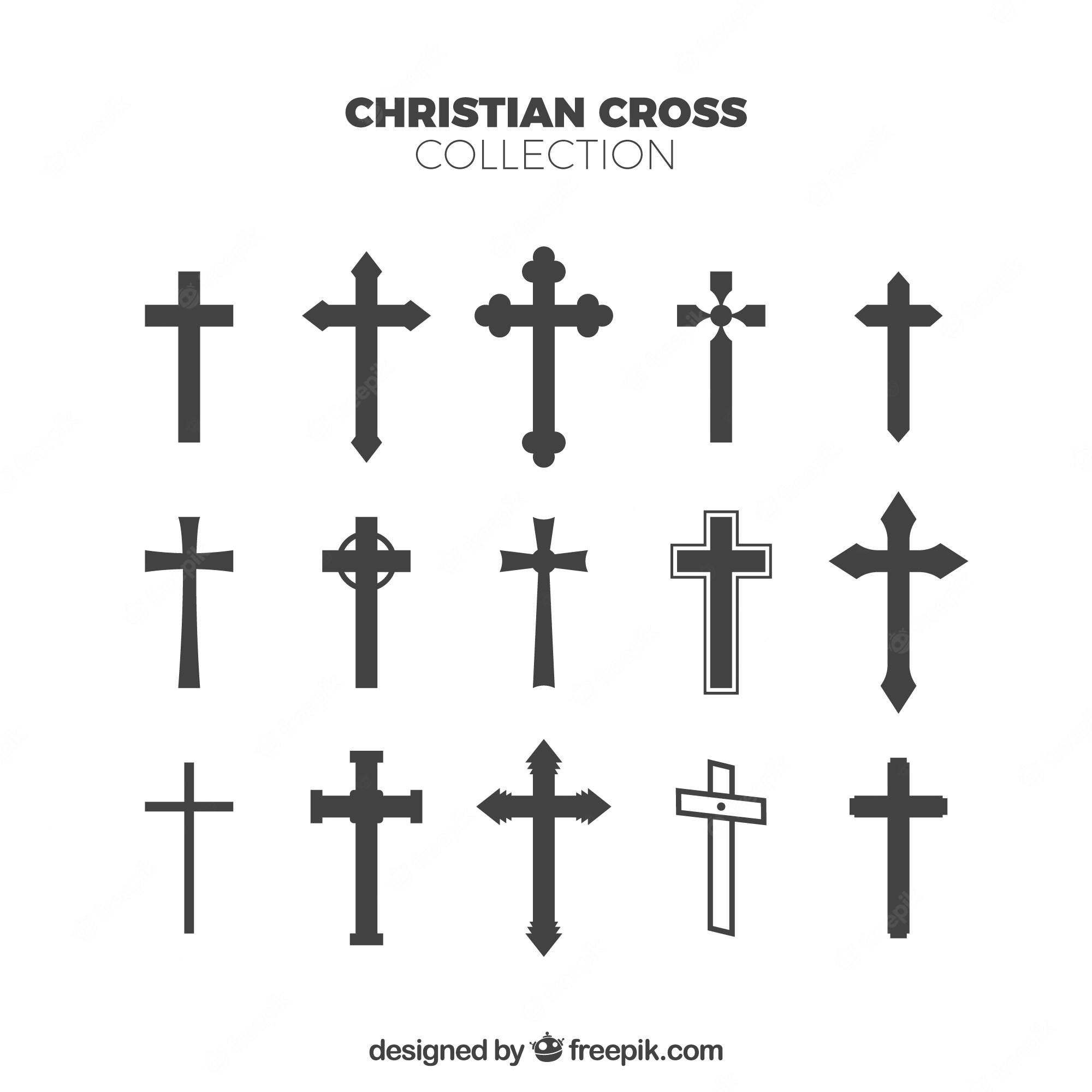
Fonts With Crosses: Adding Religious Symbolism To Your Typography
fonts with crosses: Adding Religious Symbolism to Your Designs
Fonts are a crucial element of design. They help convey a message, create a mood, and give visual interest to written communication. One popular type of font is a font with crosses incorporated into the design. These fonts are perfect for religious or spiritual messages, but they can also work well in other contexts.
The cross is one of the most recognizable religious symbols in the world, and it has been used in art and design for centuries. Incorporating a cross into a font can add an extra layer of meaning and symbolism to your design. It can also make your message stand out and give it a more powerful impact.
Fonts with crosses come in a variety of styles. Some are more ornate and traditional, while others are modern and streamlined. Some have crosses integrated into each letter, while others have a single cross as part of the design. The style you choose will depend on the message you want to convey and the overall aesthetic of your design.
One popular use for fonts with crosses is in religious or spiritual contexts. They are perfect for creating church bulletins, posters, and flyers for religious events, or for designing logos and branding materials for religious organizations. They can also be used in personal projects like invitations to baptisms, confirmations, or weddings.
Fonts with crosses are not limited to religious contexts, however. They can also be used in secular designs to add a touch of visual interest and symbolism. For example, a font with a cross could be used in a design for a charity event or fundraiser, to give the message a sense of purpose and meaning. They could also be used in designs for products or services that promote a sense of peace, harmony, or balance.
In conclusion, fonts with crosses are a powerful tool for designers. They can add a layer of meaning and symbolism to your designs, and make your message stand out. They are perfect for religious contexts, but can also be used in secular designs to give them a touch of visual interest and purpose. If you’re looking to add religious symbolism to your designs, or just want to create something that stands out, a font with crosses is definitely worth considering.